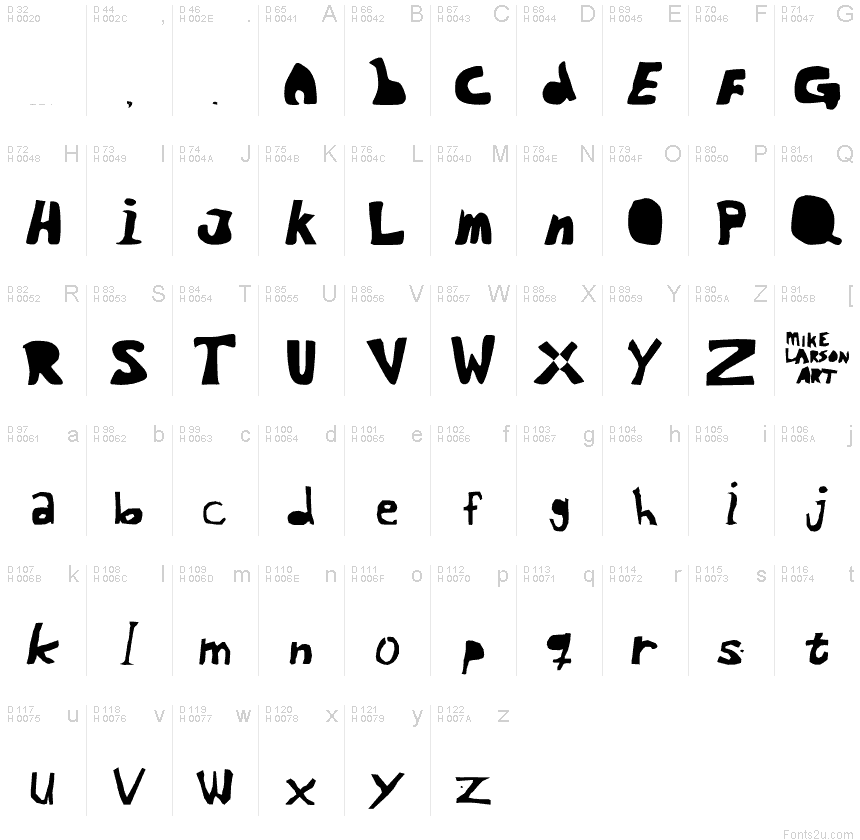
Caffeine
Caffeine font is a free distorted display typeface that looks like it was scrawled in a jittery rush after one espresso too many. Its thick, inky strokes wobble and bulge, creating a hand-drawn, slightly chaotic texture that feels raw and energetic rather than polished. Letters don’t sit politely; they sway and lean, giving headlines a buzzing, restless motion that grabs attention instantly.
Using Caffeine, this free font, you can inject nervous energy into gig posters, zines, horror titles, edgy café branding, YouTube thumbnails, indie game logos, and Halloween flyers. It works best large, where the irregular contours and inky blobs can really breathe. For balance, pair it with a clean geometric sans in small text to keep layouts readable while Caffeine does the loud, unruly storytelling up top.